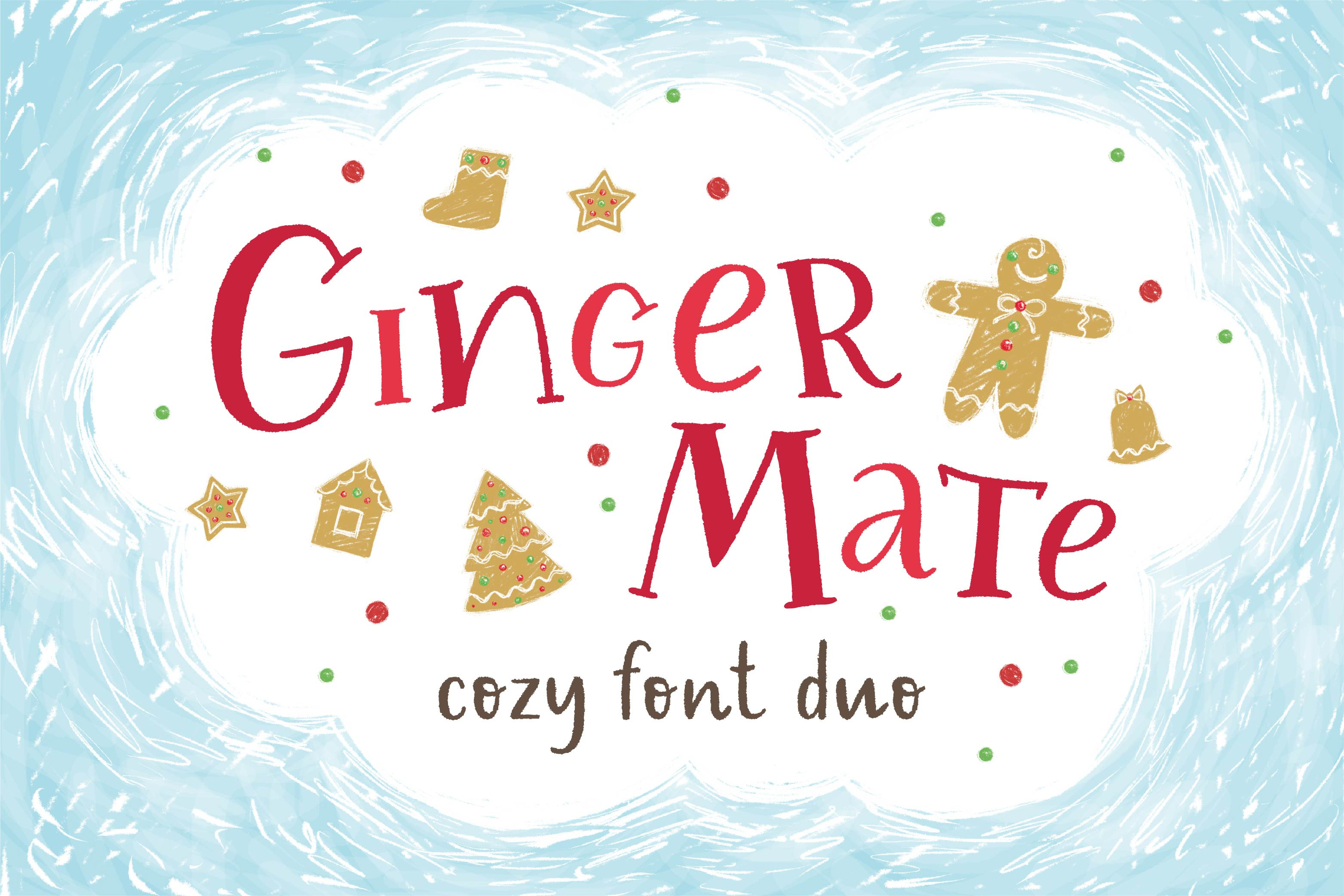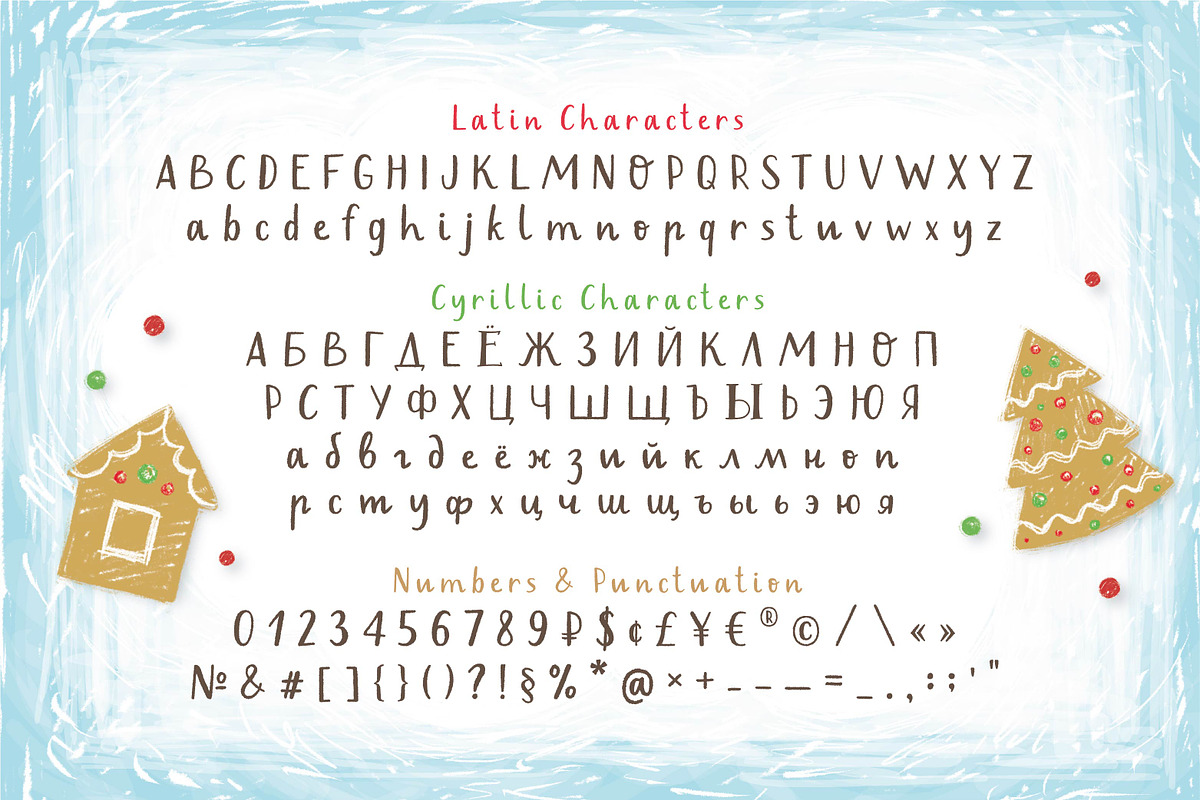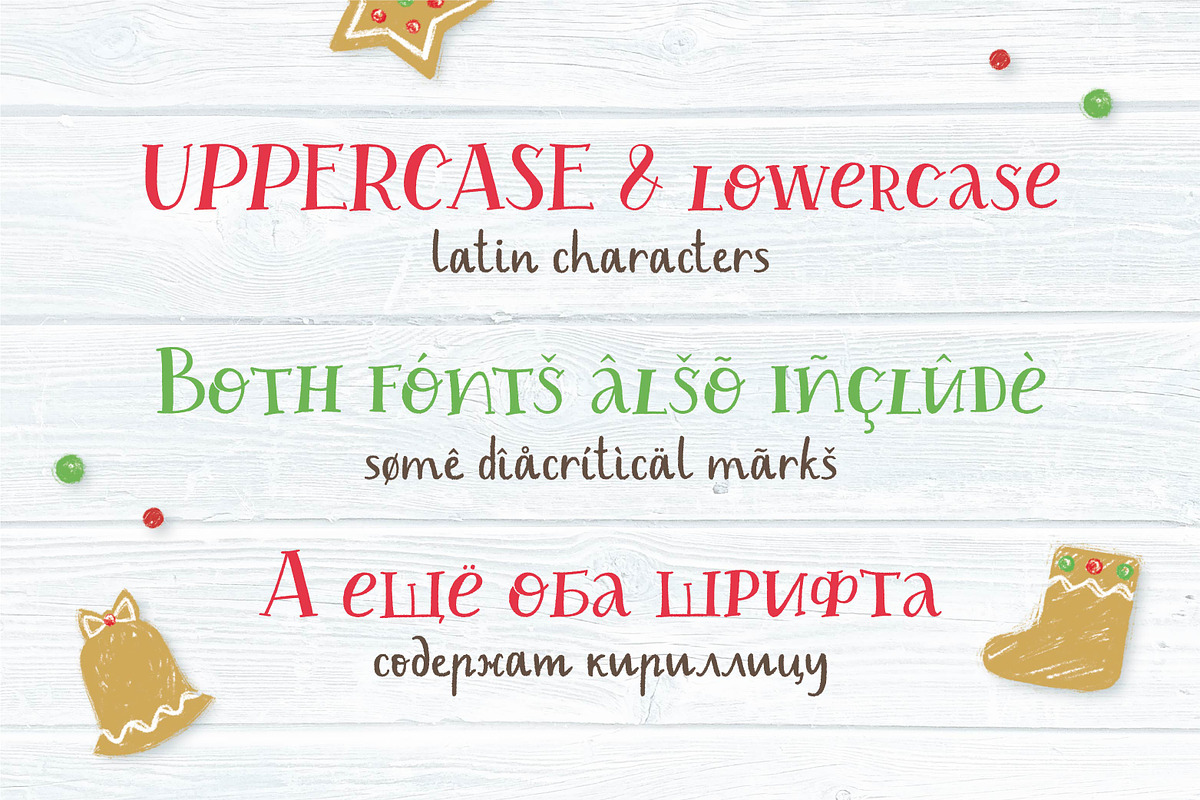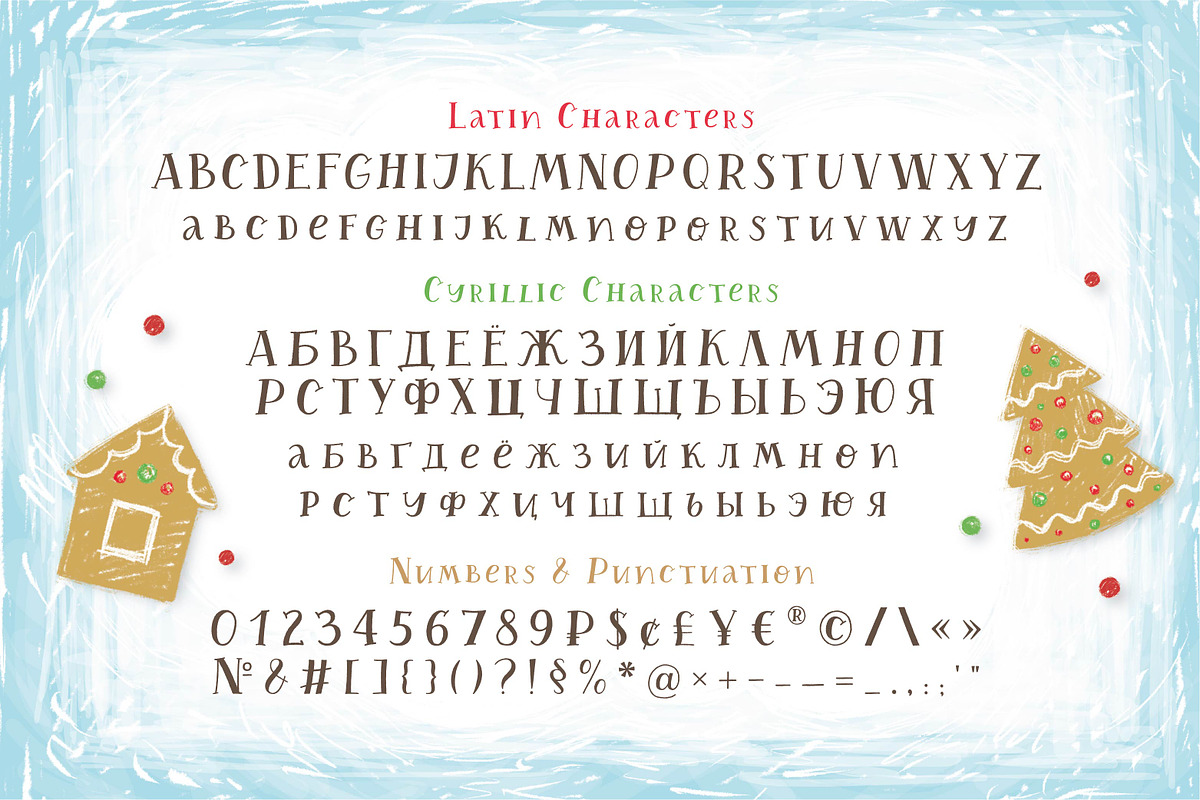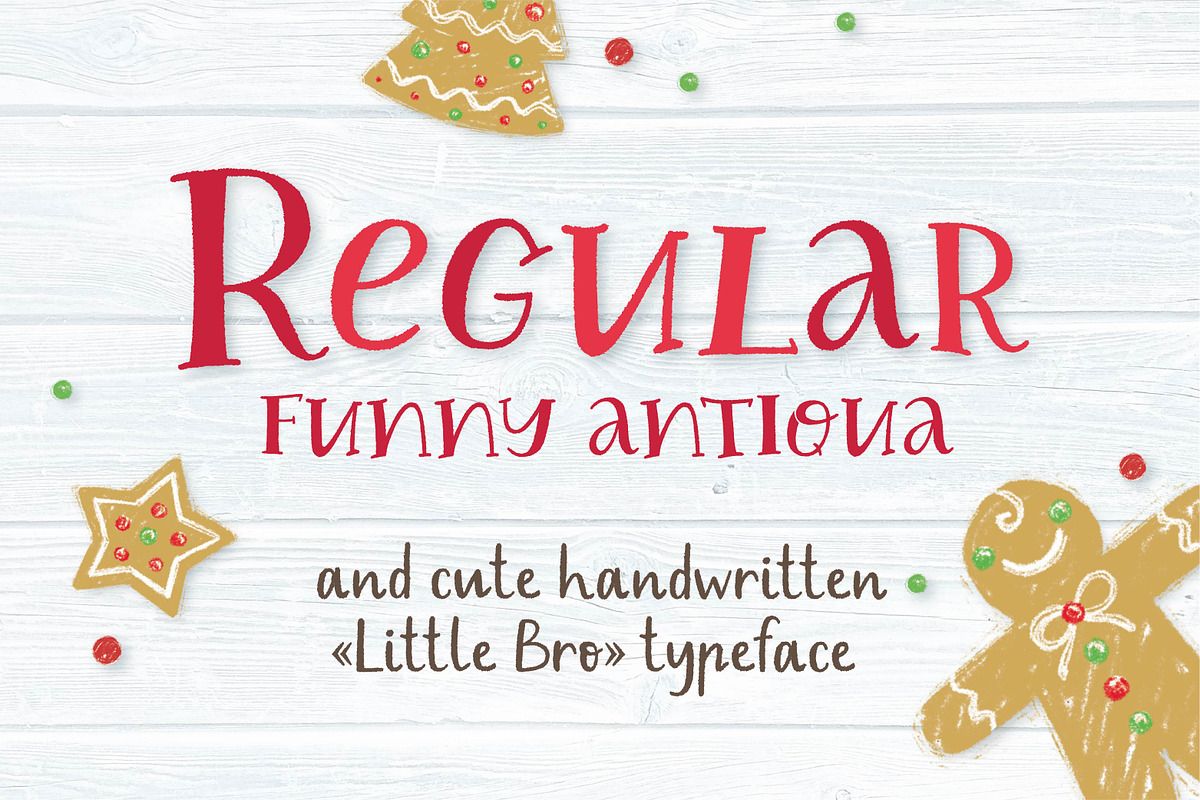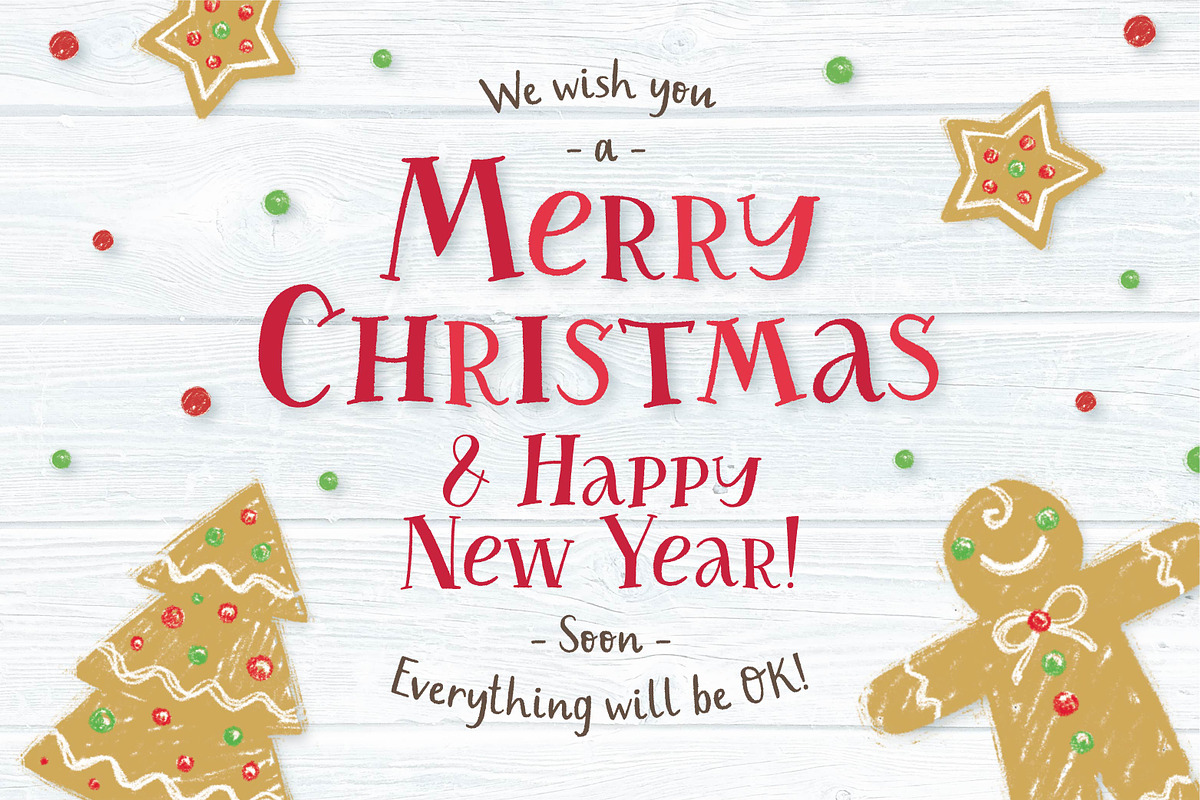
Ginger Mate Latin & Cyrillic fonts
Ginger Mate is a handwritten funny font duo which makes it great for Christmas cards or advertising, as well as for any children's design. Each of these fonts include latin and cyrillic characters, diacritics, numbers and punctuation.